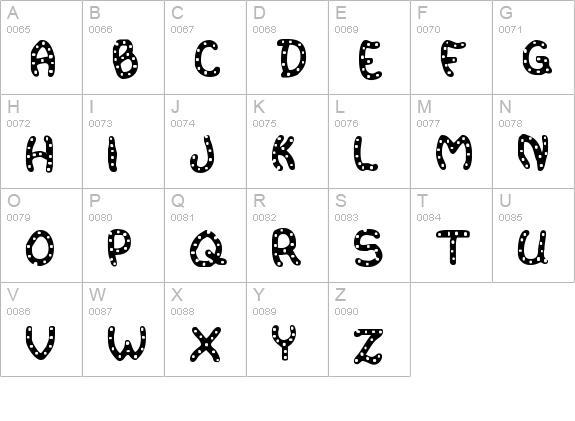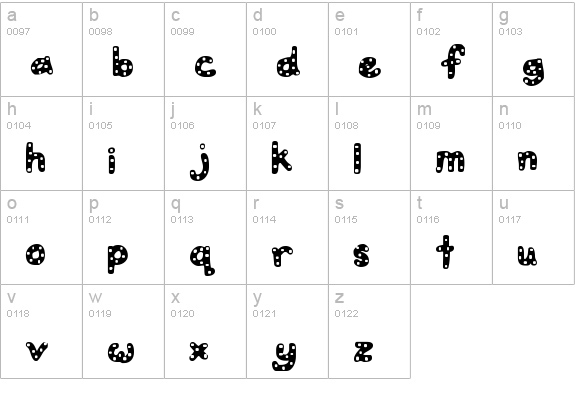
Water Toy Font Details
Water Toy font is a playful and vibrant typeface that will bring a cheerful and joyful touch to any design project. With its whimsical shapes and wavy lines, this font captures the essence of carefree fun and aquatic adventures. Whether you are creating a logo for a water park, designing a poster for a beach party, or crafting a children's book cover, Water Toy font will add a delightful and energetic charm to your design. Its unique and eye-catching letterforms make it perfect for headlines, titles, and any text that needs to make a bold statement. What makes Water Toy font even more amazing is that it is freely available to download at FontsMarket.com. Yes, you read that right - this fantastic font can be yours at no cost! Now you can enjoy the playful personality of Water Toy font without breaking the bank. So, dive into the world of creativity and download Water Toy font today at FontsMarket.com. Unleash your imagination and let this free font make a splash in your designs.